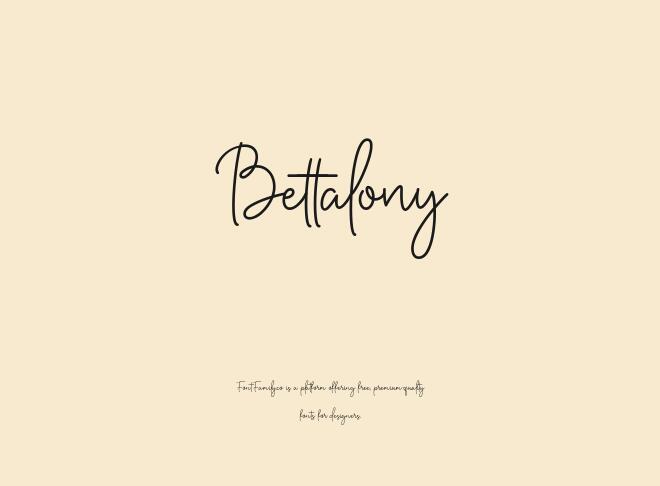
Bettalony Font
Bettalony Font is a modern, playful, and handwritten font that effortlessly blends contemporary style with a dash of whimsy. Designed by Bettalony Design Studio, it brings a unique and charming character to any design project. Its handwriting-inspired aesthetics make it perfect for logos, invitations, greeting cards, or any design that requires a personal touch. Bettalony Font stands out in its category with its clean lines and modern flair, reminiscent of popular fonts but with a unique twist. Its versatility makes it a great choice for both print and digital media. The font is free for personal use, making it an excellent resource for designers on a budget. Bring your designs to life with the distinctive style of Bettalony Font.